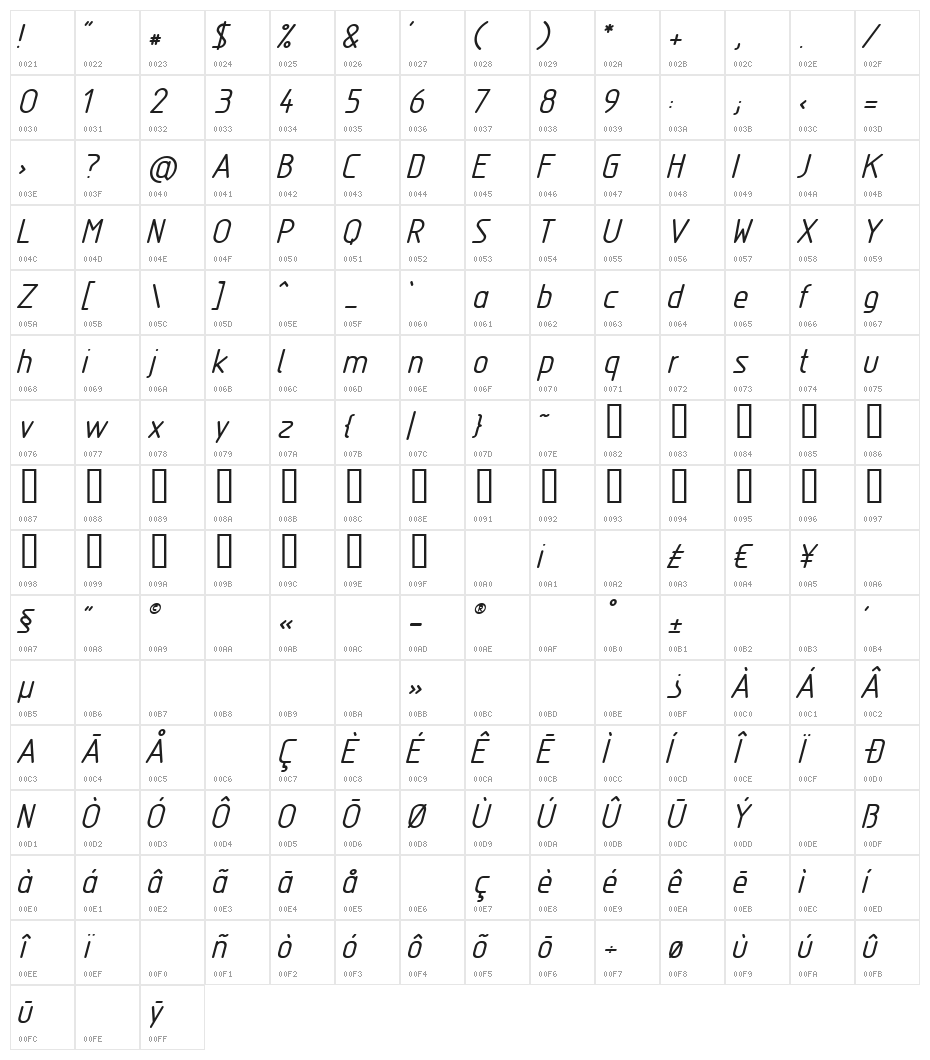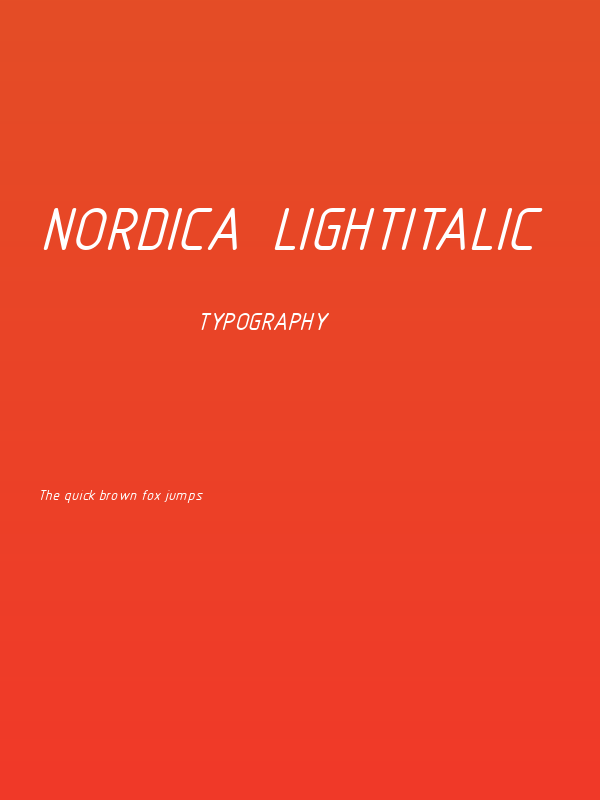
Nordica LightItalic Font
Nordica LightItalic Description
This font features a sleek and modern design with a light and italicized style. The characters are slightly elongated, giving them a streamlined and contemporary appearance. The strokes are consistent and smooth, with a subtle slant that adds a sense of motion and elegance. The font maintains a clean and minimalistic aesthetic, making it versatile for various design applications. The numerals and special characters are well-integrated, maintaining the overall style and ensuring readability.
| Proposed Projects | Ideal for modern branding, tech-related projects, sleek packaging designs, and contemporary editorial layouts. |